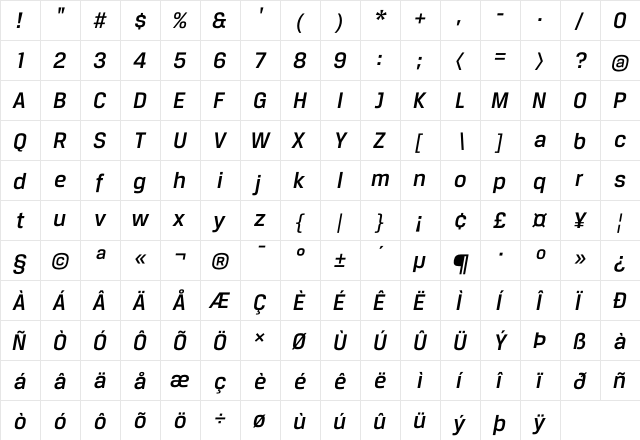
BreuerText Medium Italic Font Preview
BreuerText Medium Italic
BreuerText Medium Italic Font Details
| Style | Medium Italic |
| Foundry | by Silas Dilworth |
Design Context for BreuerText Typeface
BreuerText takes a measured approach to typography — its balanced proportions and neutral character make it a reliable workhorse for both digital and print work. The dynamic lean of this cut emphasises speed and emphasis in any layout.
Pro Tip: Try BreuerText for annotation and caption copy alongside an upright companion — the contrast in angle creates a dynamic but ordered typographic system.